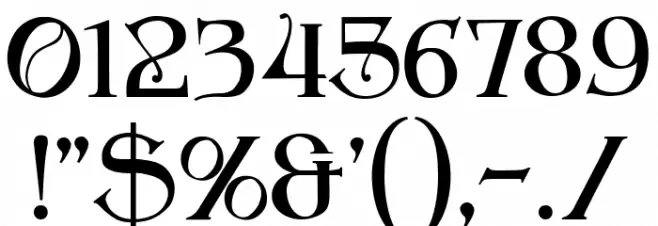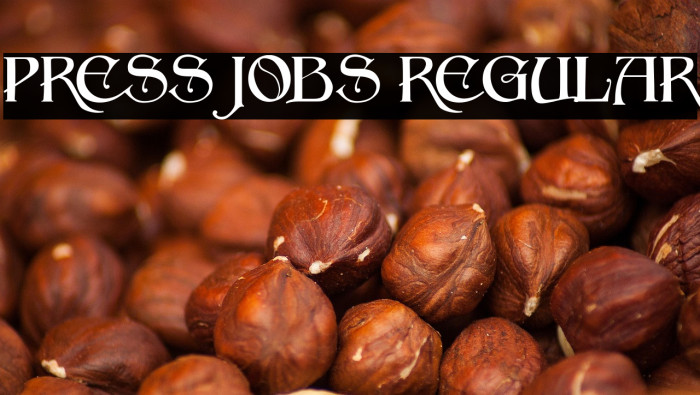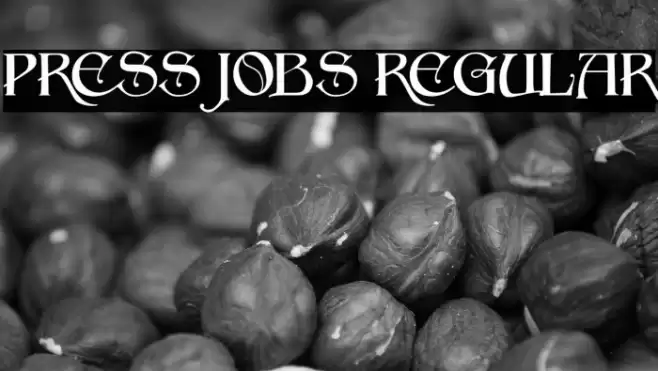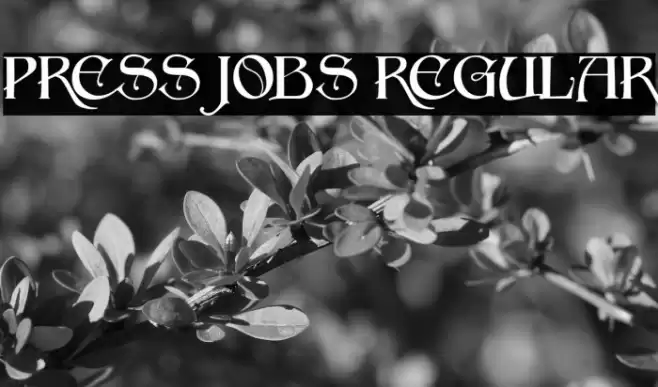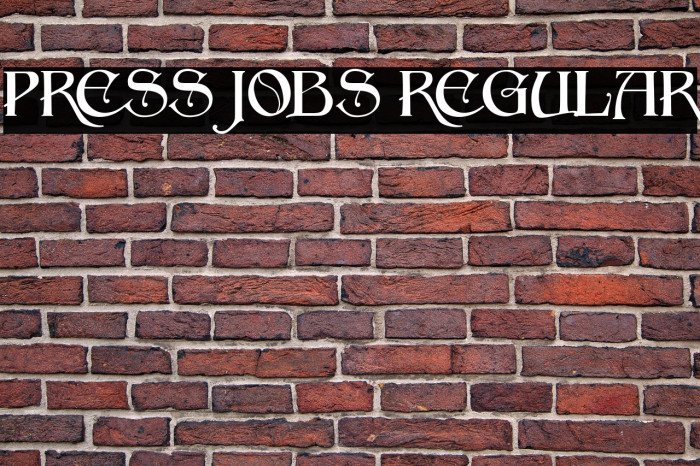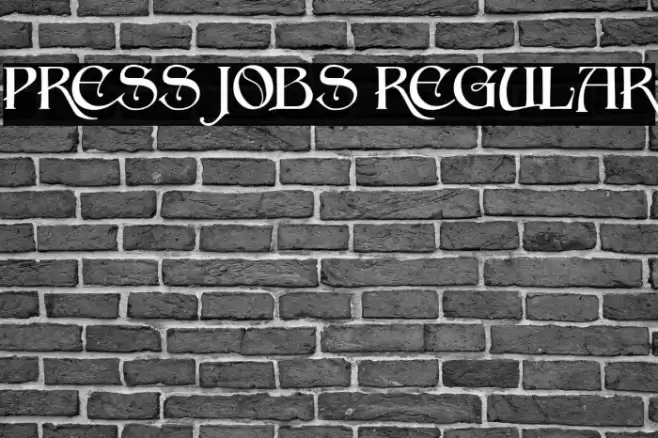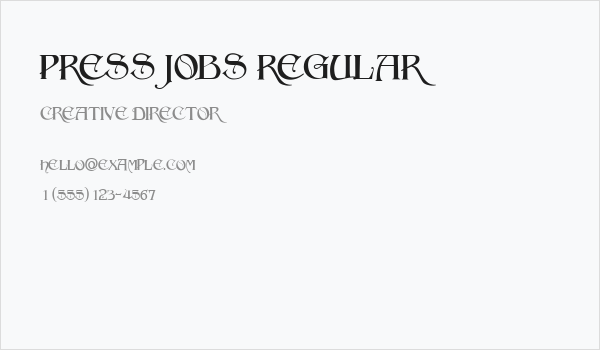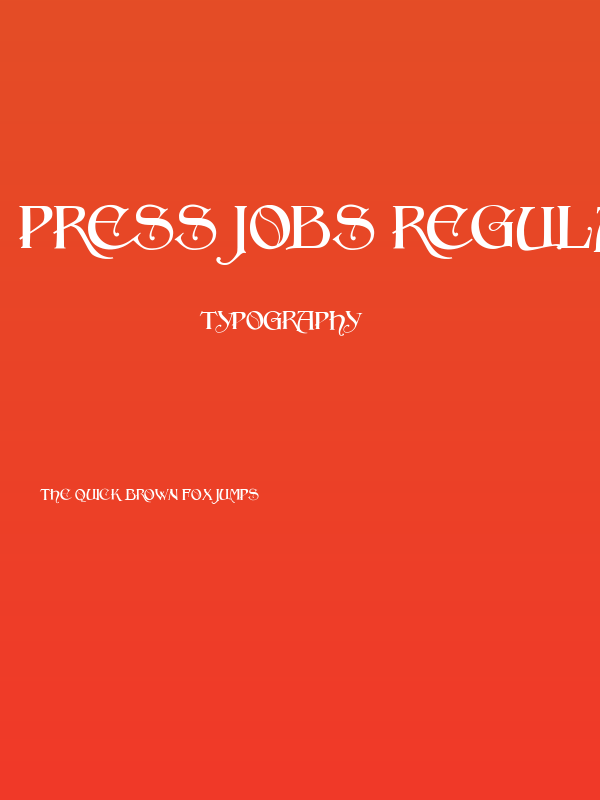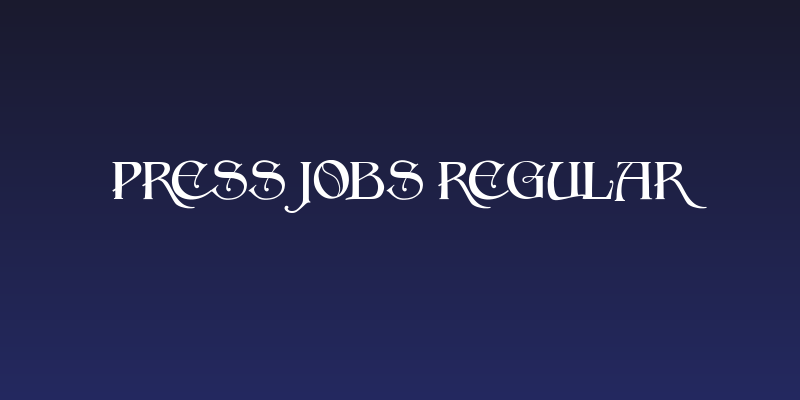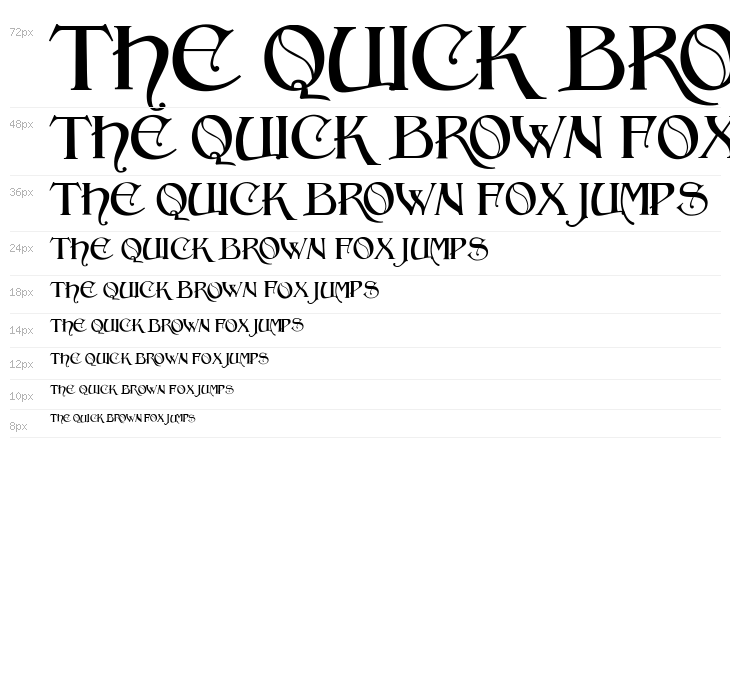
Press Jobs Regular Font
Press Jobs Regular Description
This font features a decorative and intricate design, combining elements of both traditional and modern styles. The uppercase letters are characterized by sharp, angular serifs and unique flourishes that give each character a distinct personality. The lowercase letters maintain a consistent style, with elegant curves and a slightly condensed form. The numerals are bold and striking, with a consistent weight that complements the overall design. Special characters are crafted with the same attention to detail, making them suitable for a variety of creative applications. The font's high contrast in stroke thickness adds to its dramatic appearance, making it ideal for eye-catching headlines and artistic projects.